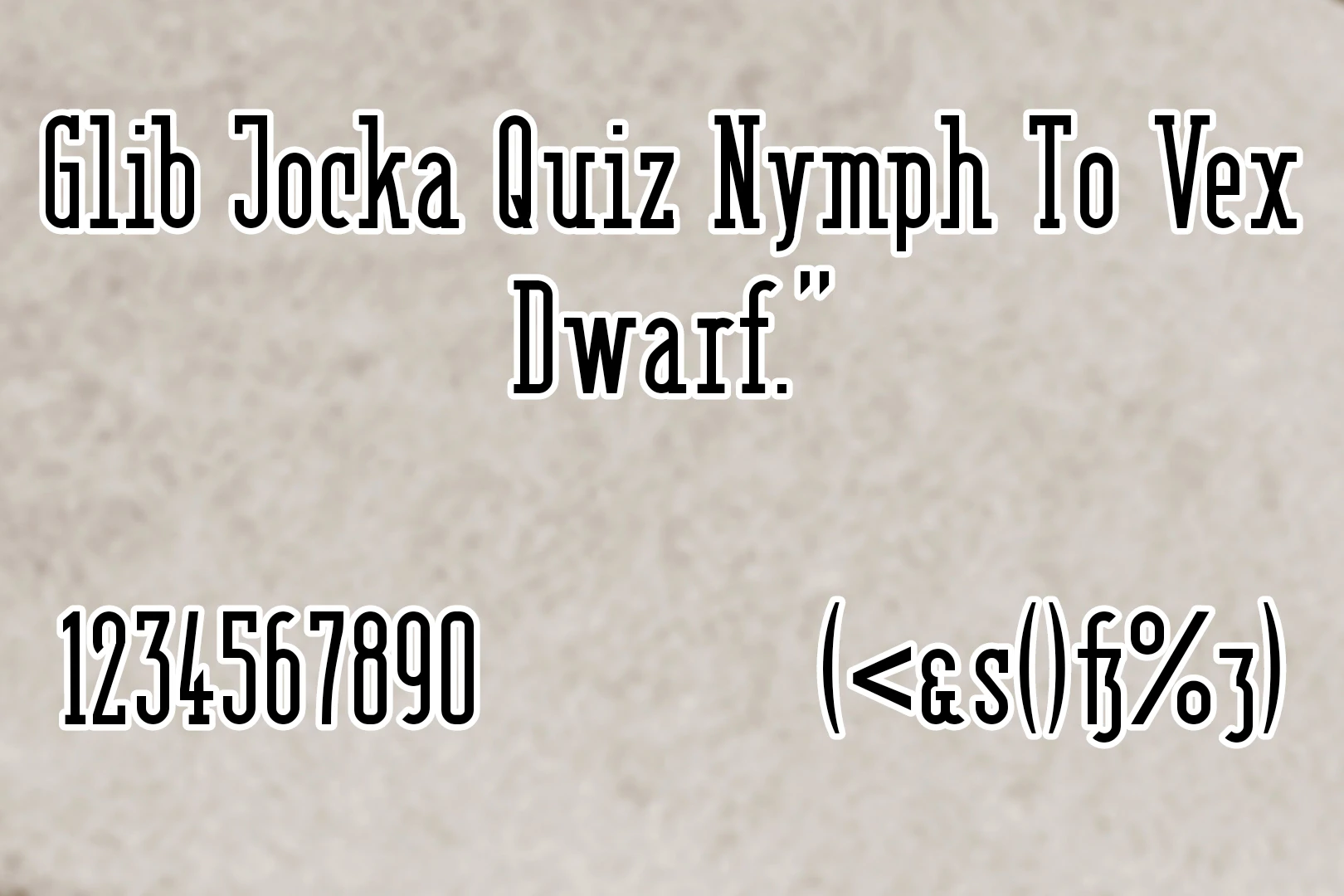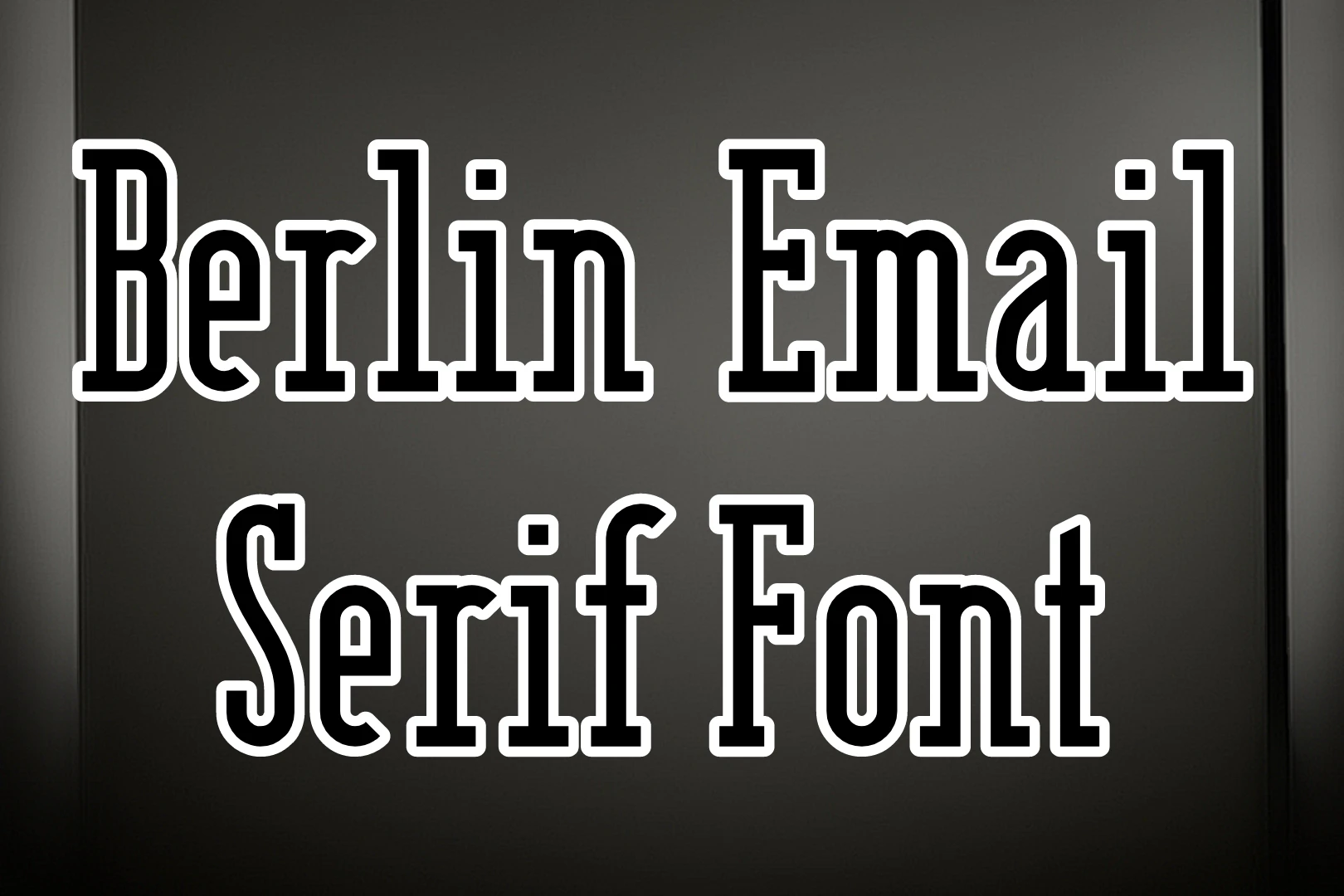
You can easily combine this font with Bree Serif Font and create attractive designs. Its distinctive design makes it suitable for a wide range of applications, from internet sites to brand layouts and documents, providing a handsome and unique appearance. With a Serif Shadow variant available for both MAC and PC, it offers versatility in creating custom images and engaging typography.
Uses of Berlin Email Serif Font
It finds its utility in various design contexts, enhancing the visual appeal of internet sites, brand materials, and reports. The font’s classic serif style lends itself well to projects that require a sophisticated and distinctive look. Whether you’re working on a personal project or a commercial endeavor, It adds a touch of elegance to your typography, making it suitable for diverse applications.
This Font is a versatile gem that adds a touch of sophistication to a range of projects. From spicing up your blog headers to giving your professional documents a refined look, this font is your go-to for invitations, branding, and even social media graphics. Imagine effortlessly crafting eye-catching social media posts or designing invitations with it. it’s like giving your creations a timeless and elegant makeover.
When it comes to design tools, It is smoothly integrated with popular software like Adobe Illustrator and Photoshop, allowing you to infuse its classic serifs into your graphics effortlessly.
Whether you’re a seasoned designer or a beginner, platforms like Canva make it a breeze to access and apply, letting you create visually stunning designs with just a few clicks. Unleash the charm of this texture and elevate your creative projects with its distinctive and refined typography.
Is there a specific application where Berlin Email Serif Font excels?
It is versatile and can be used across various design projects, including internet sites, brand layouts, and documents, where a distinctive and handsome appearance is desired.